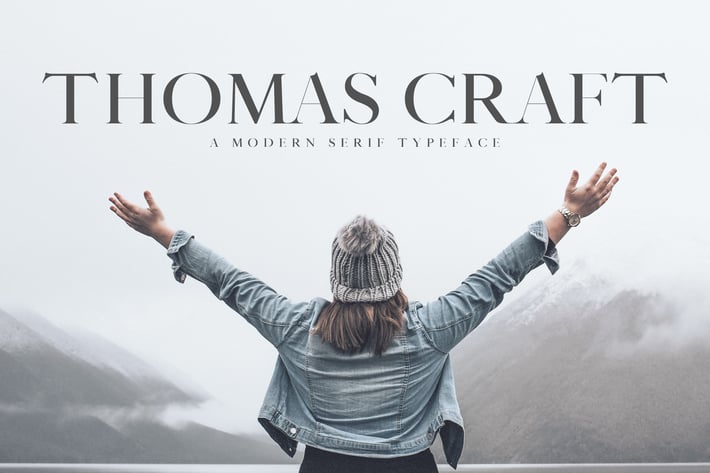
Thomas Craft A Modern Serif Typeface
Thomas Craft is a sophisticated modern serif font with 4 different weight choice. It includes all basic glyphs with Non-English characters.
Thomas craft can be used for headlines, posters, branding, packaging, presentations, logo, quotes, titles, magazines headings, web layouts, advertising, invitations, packaging design, books, and nearly any creative design.
Included Features:
Font Weight: Regular, Thin, Round and Bold
Thomas Craft Font Features:
Uppercase Letters
Lowercase Letters
Numbers & Punctuation
Non English Characters ( Latin Supplement + Latin Extended A)